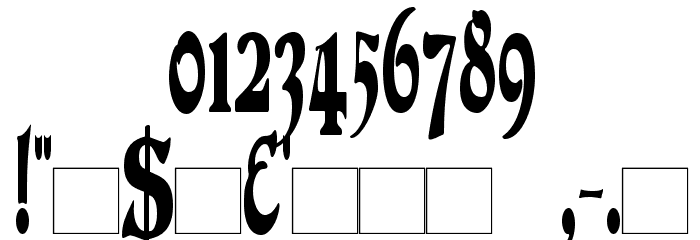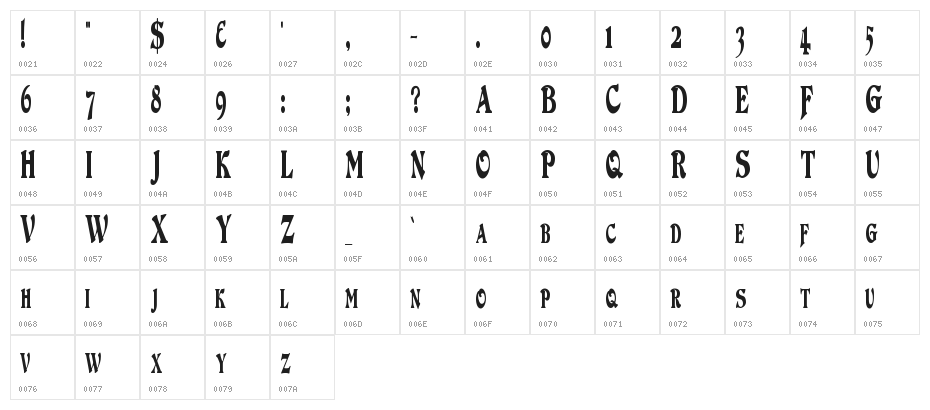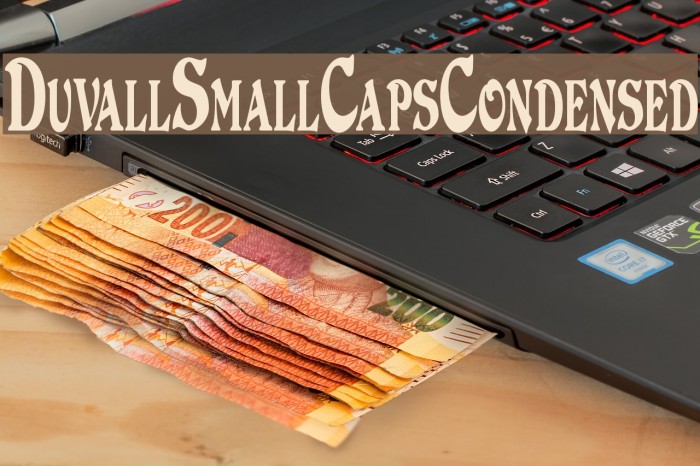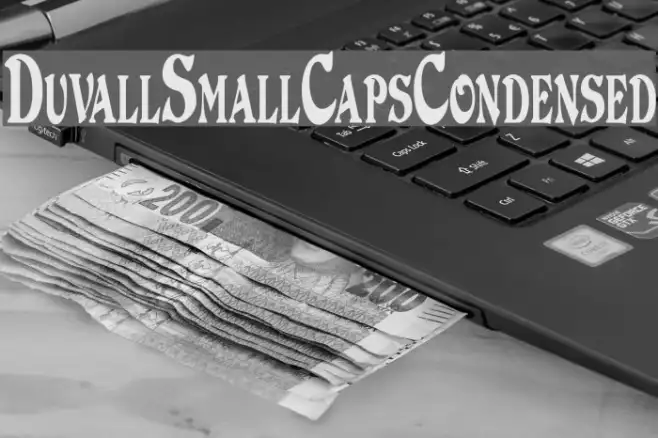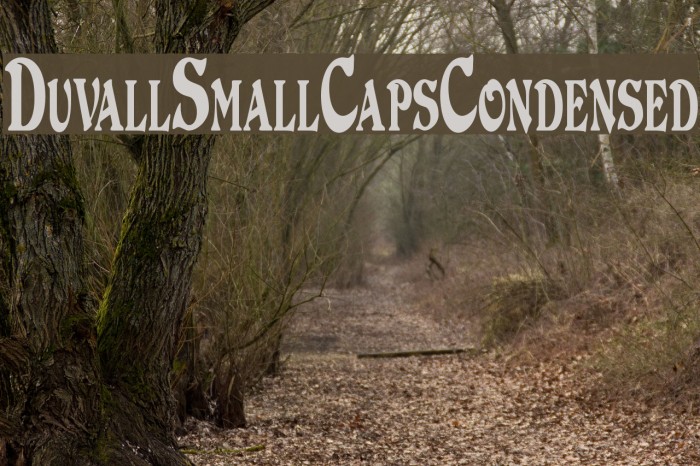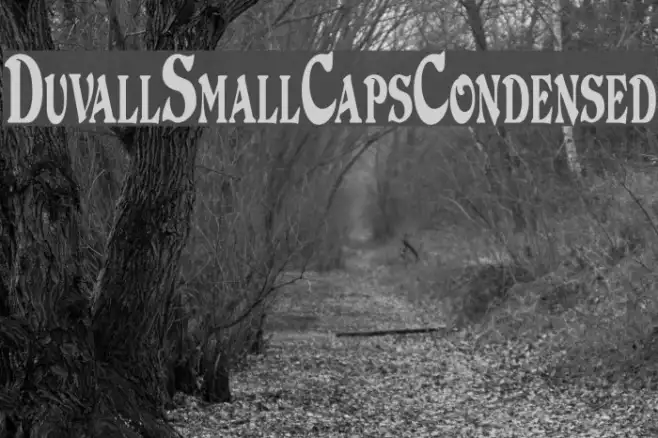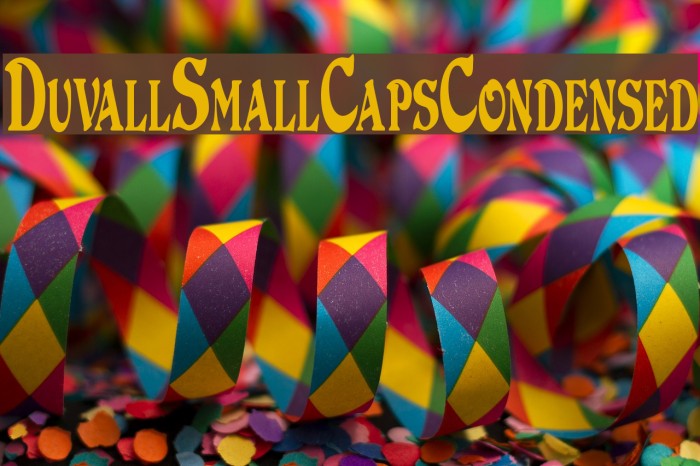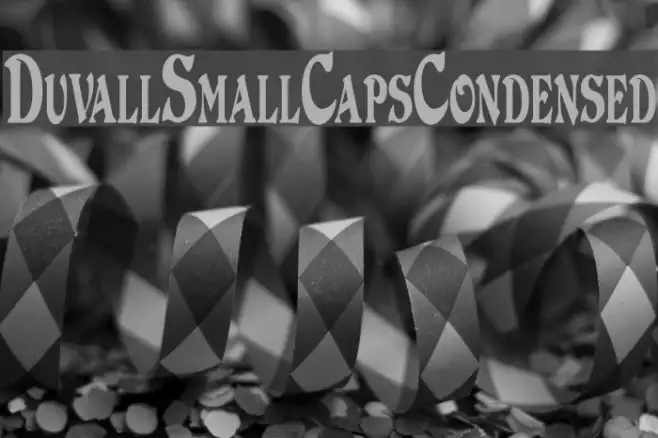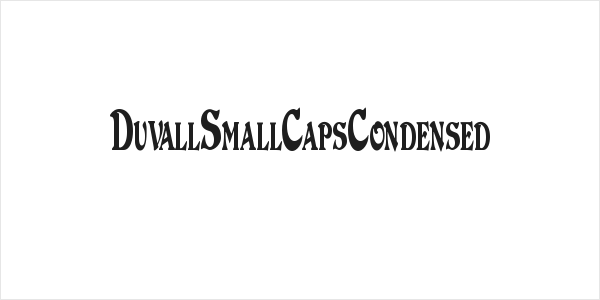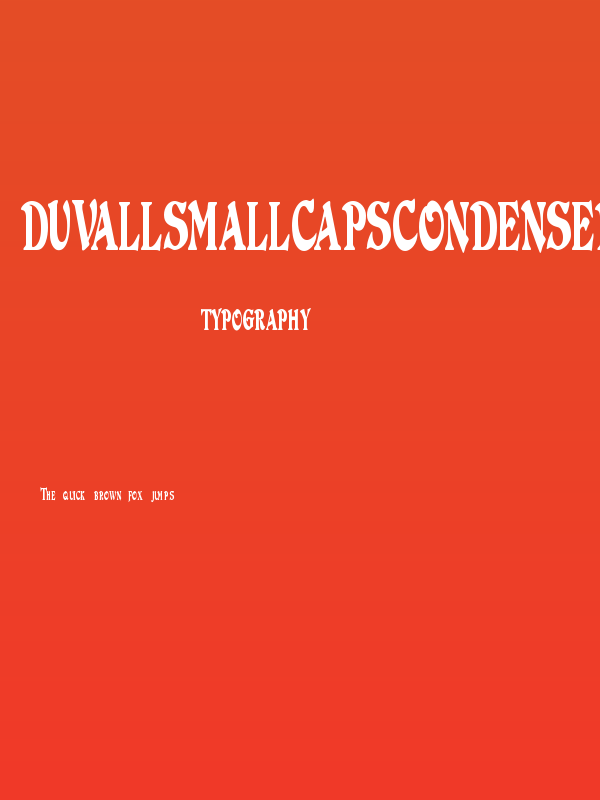
DuvallSmallCapsCondensed Font
DuvallSmallCapsCondensed Description
This font features a bold and condensed style with a distinct vintage flair. The uppercase letters are prominent and display a unique blend of sharp and rounded edges, giving them a dynamic and eye-catching appearance. The numbers and special characters maintain this boldness, ensuring consistency across the typeface. The overall design is reminiscent of classic signage or poster fonts, making it ideal for projects that require a strong visual impact.
| Proposed Projects | Ideal for vintage-themed posters, signage, branding, and headlines that require a strong visual presence. |